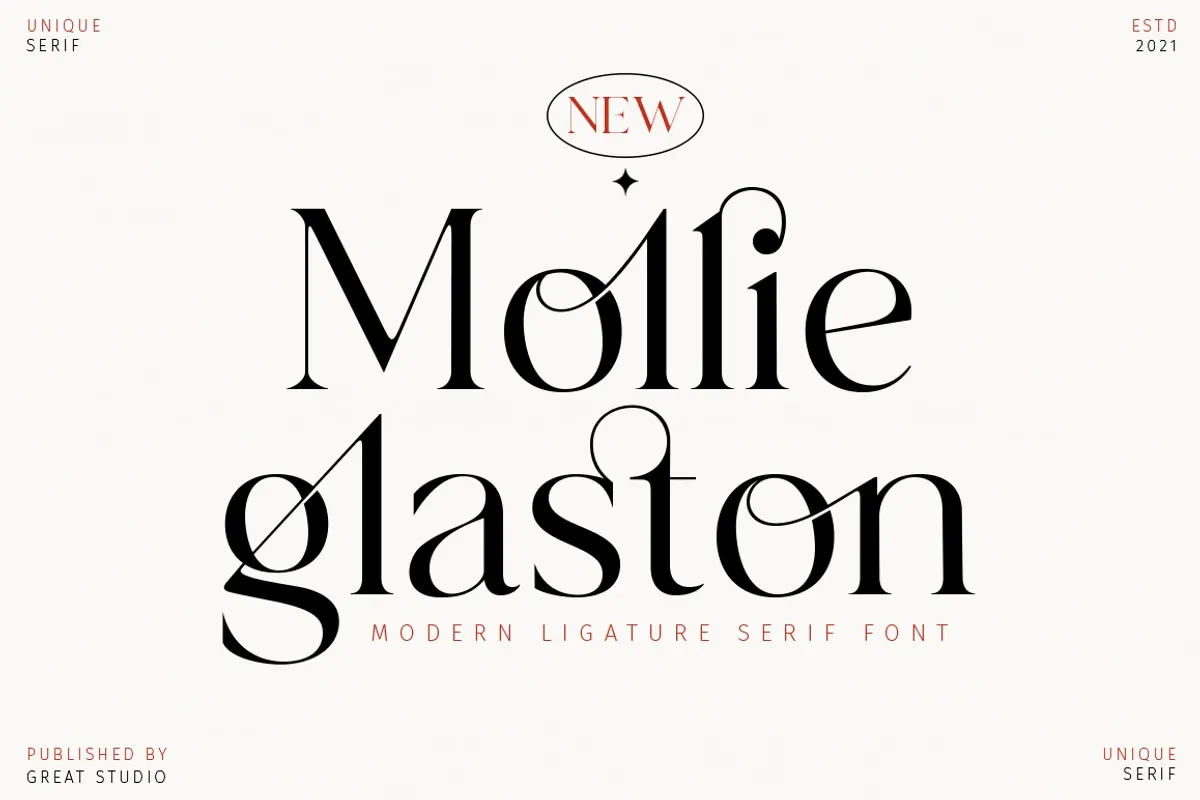
Mollie Glaston-Modern Ligature Serif Free Download
Add elegance and style to your designs with Mollie Glaston – Modern Ligature Serif Font Free Download, a sophisticated typeface featuring unique ligatures and refined details. You need to purchase this font for commercial use. However, you can test it in personal or demo projects using Mollie Glaston – Modern Ligature Serif Font Free Download. Perfect for branding, fashion editorials, wedding invitations, logos, and upscale packaging, this font blends modern minimalism with classic beauty. Designers love its stylish ligatures and smooth readability. Download Mollie Glaston – Modern Ligature Serif Font Free Download today and bring a luxurious touch to your creative projects.